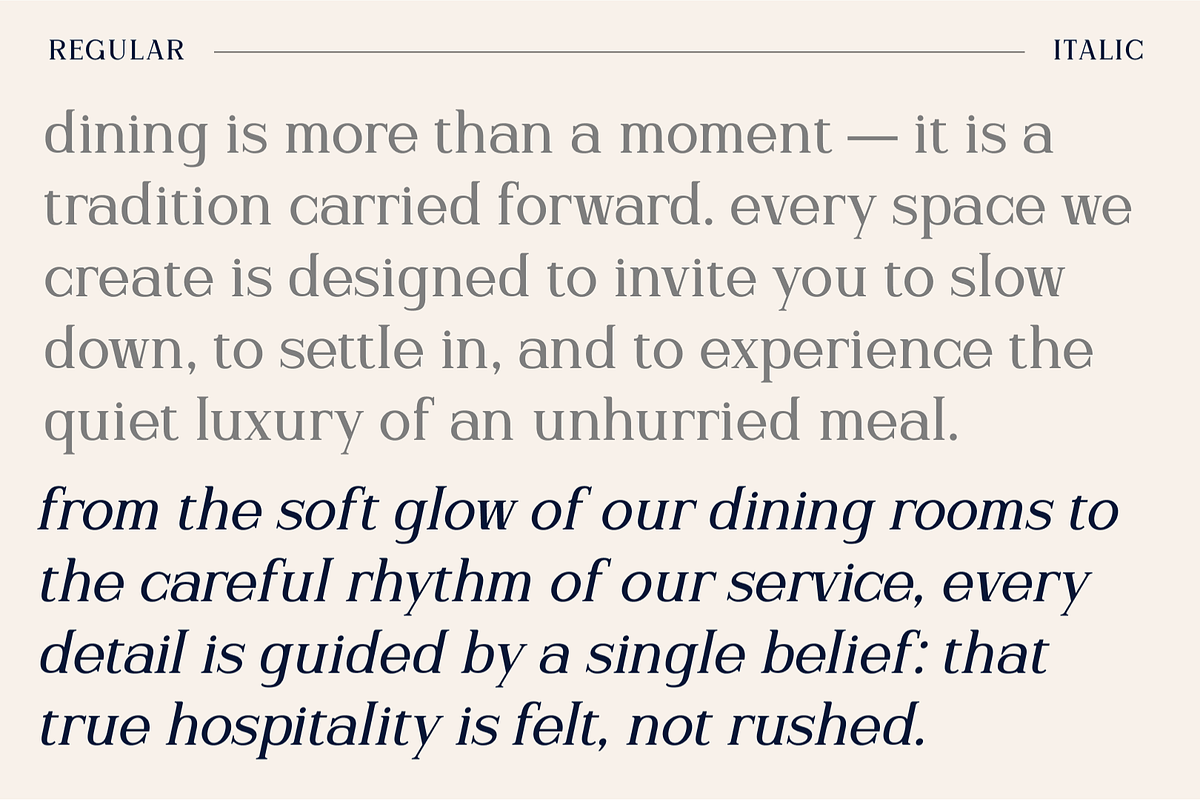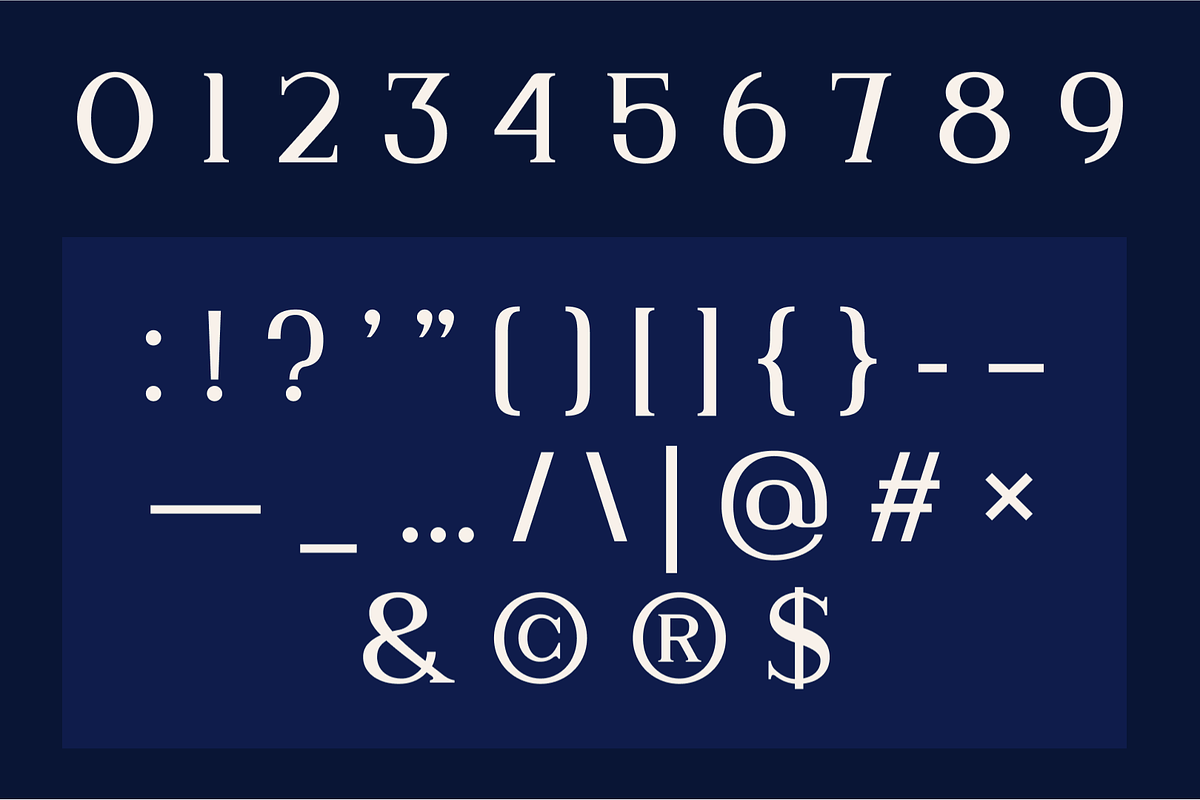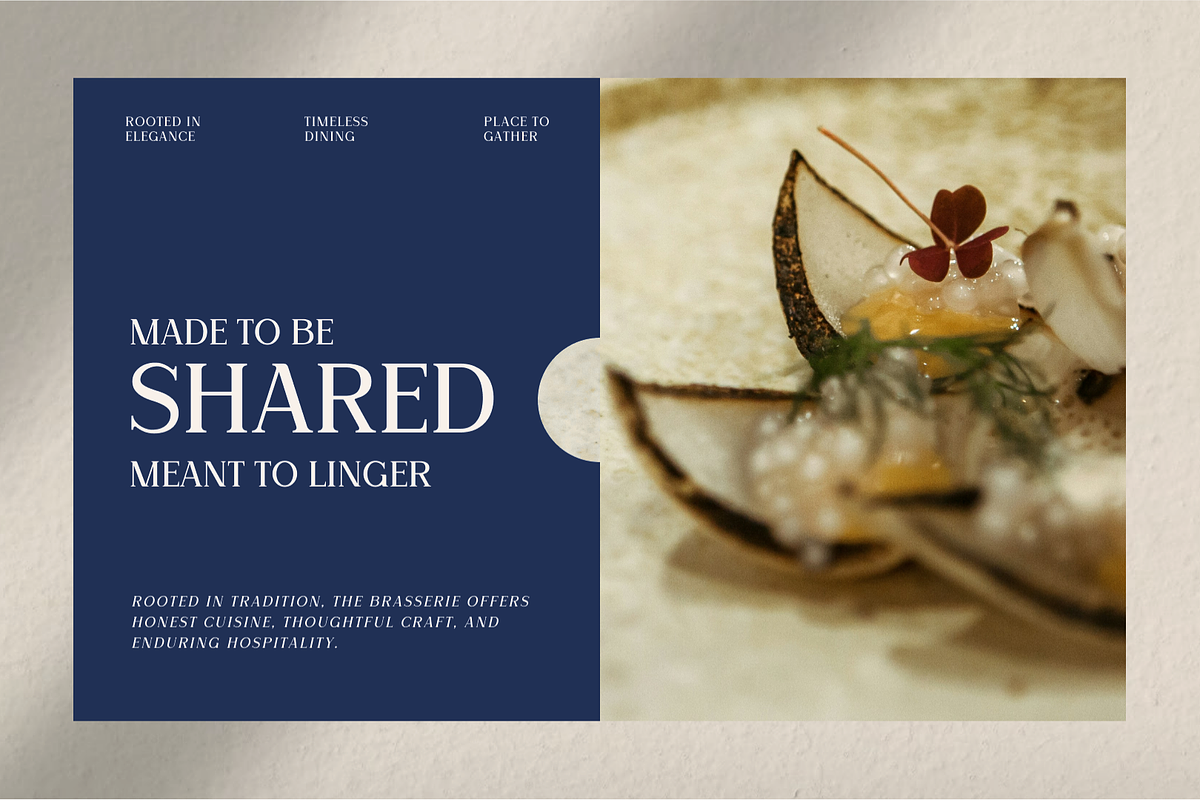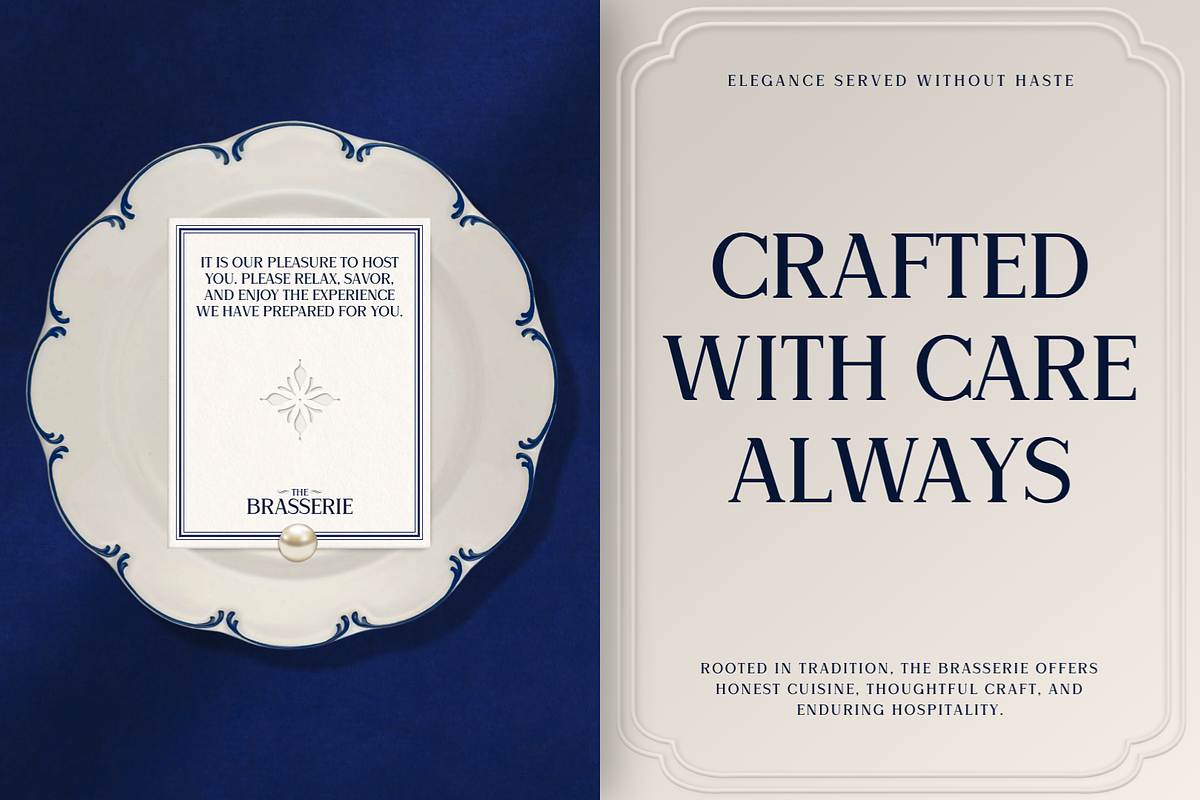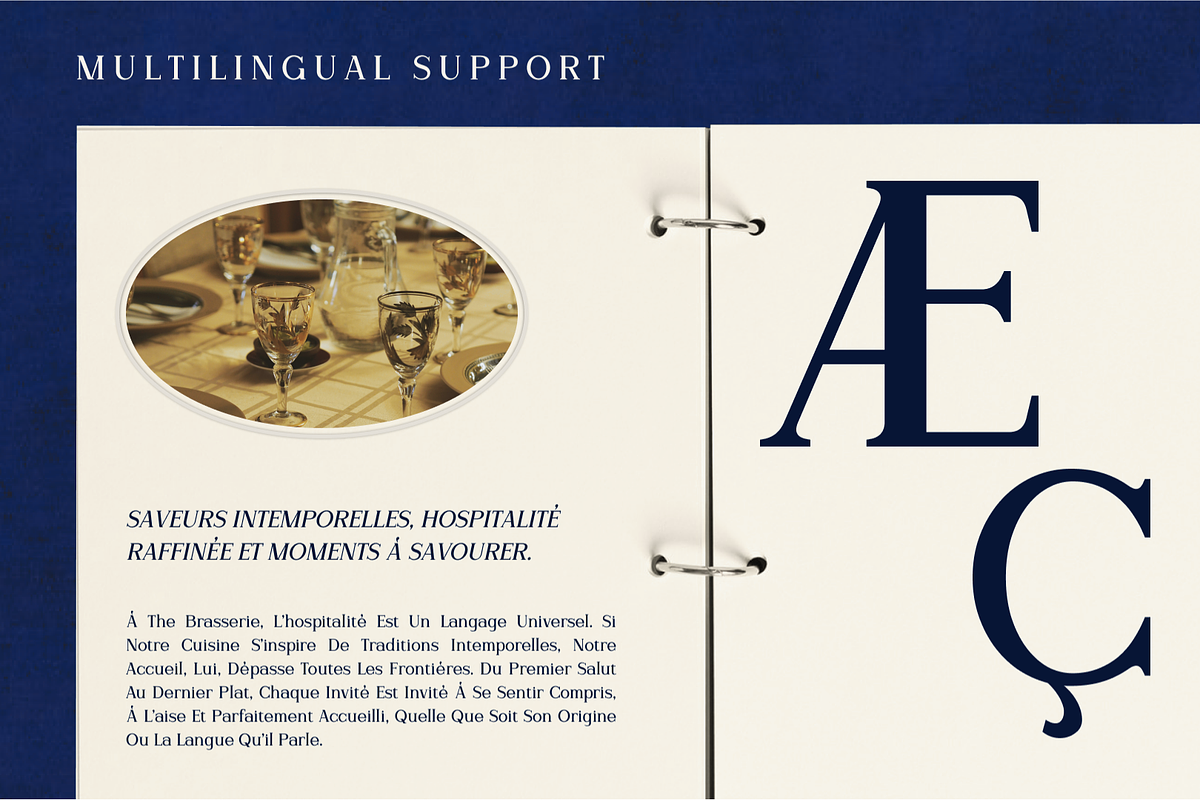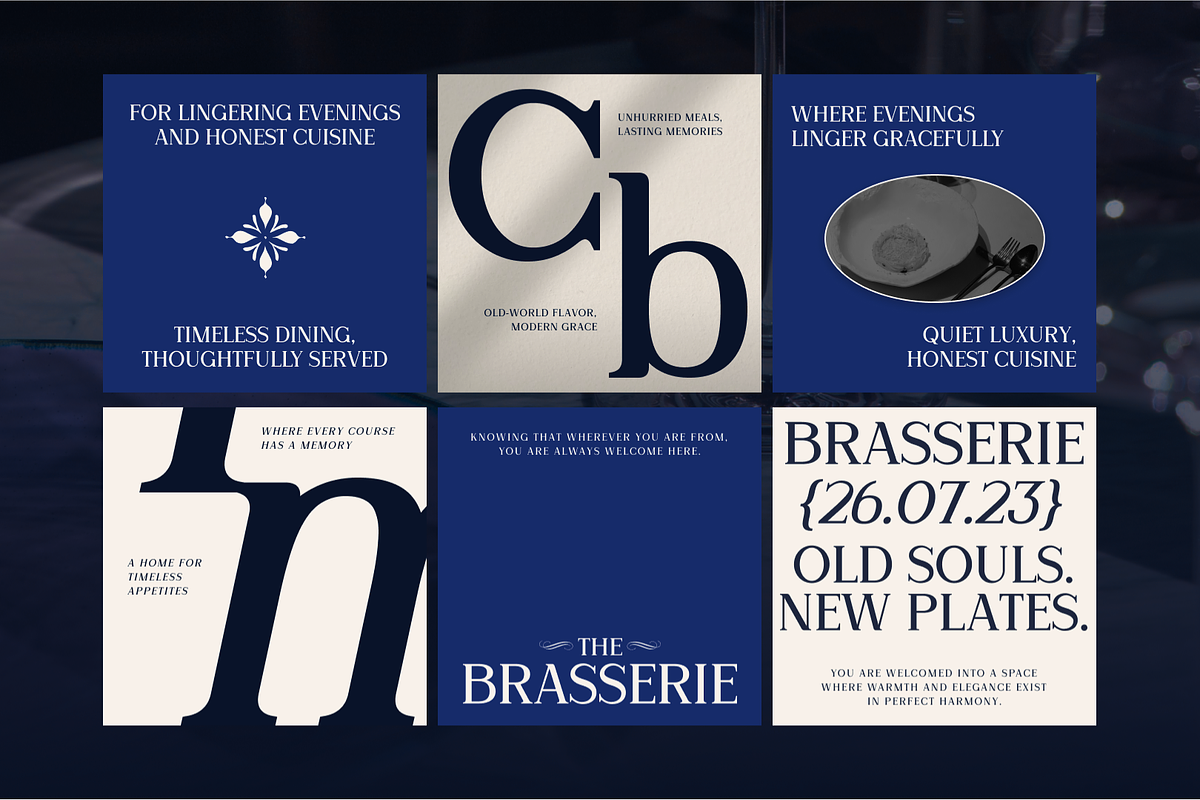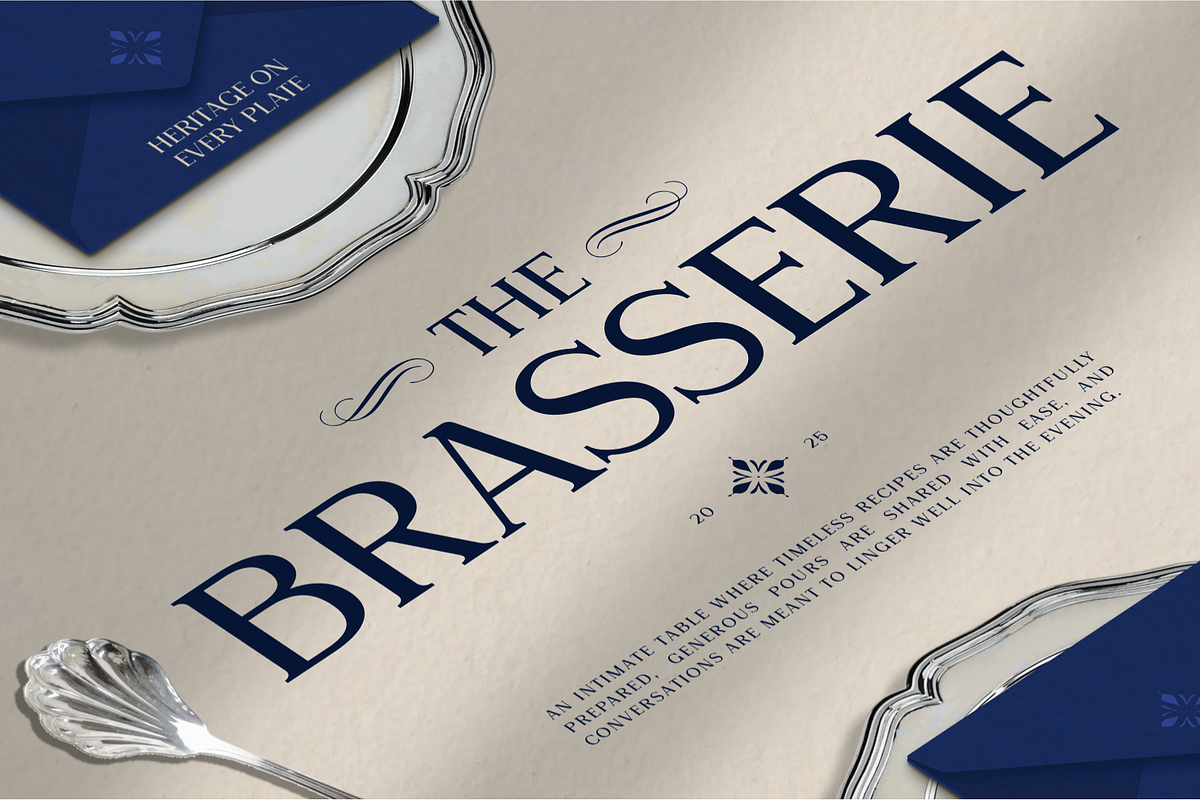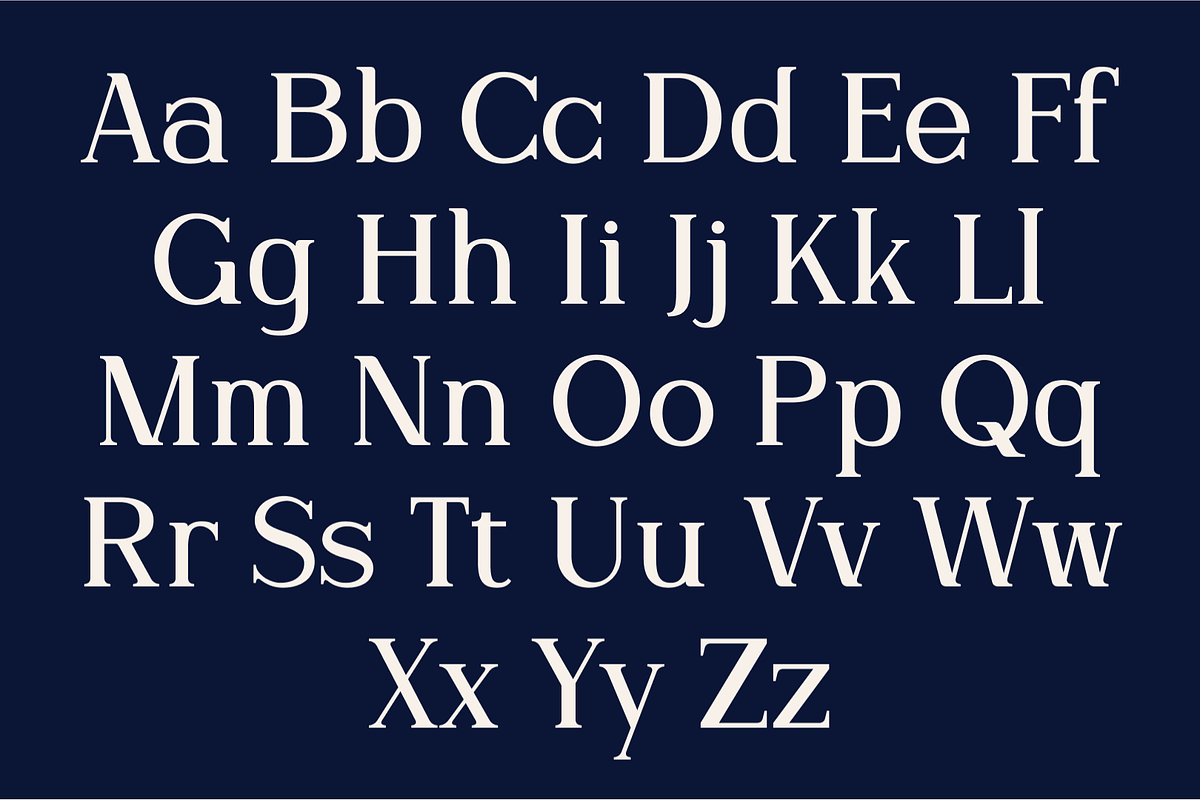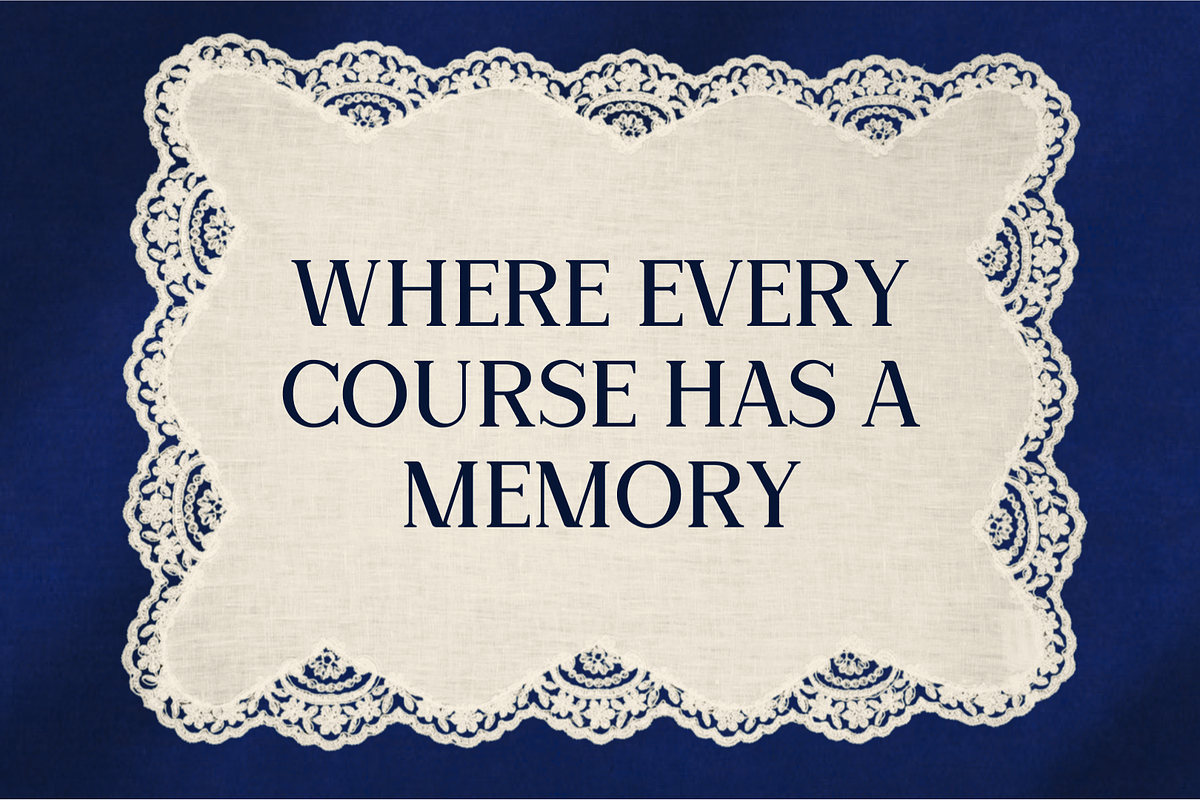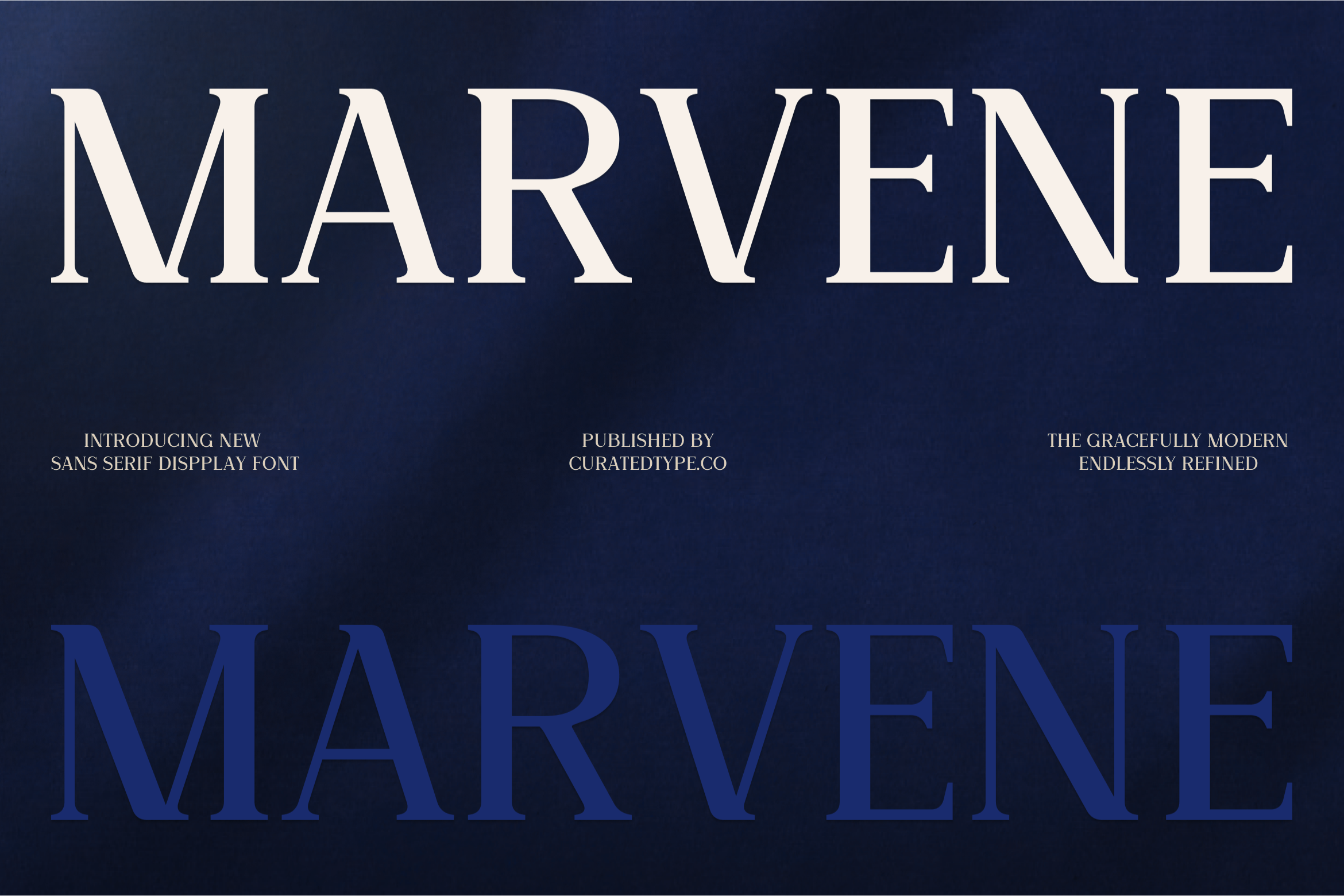
Marvene - Serif Font
Elevate your designs with Marvene, a typeface that effortlessly blends vintage charm with contemporary precision. Designed for those who seek sophistication, Marvene features striking high contrast between thick stems and delicate hairlines, accented by unique ball terminals that add a touch of whimsy to its authoritative stance. It captures the essence of timeless editorial design, making it the perfect choice for projects that require a voice of luxury and distinction.
Whether you are crafting a logo for a high-end fashion brand, laying out a lifestyle magazine spread, or designing elegant wedding invitations, Marvene delivers clarity and style. Its versatile structure allows it to command attention in large headlines while maintaining legibility in short blocks of text. Add Marvene to your typographic toolkit today and bring a sense of refined polish to your visual identity.
- 2 Styles Font : Regular, Italic
- Standard letter A-Z and a-z
- Numeral, Symbol, and Punctuations
- OpenType Feature
- Over 500 glyphs